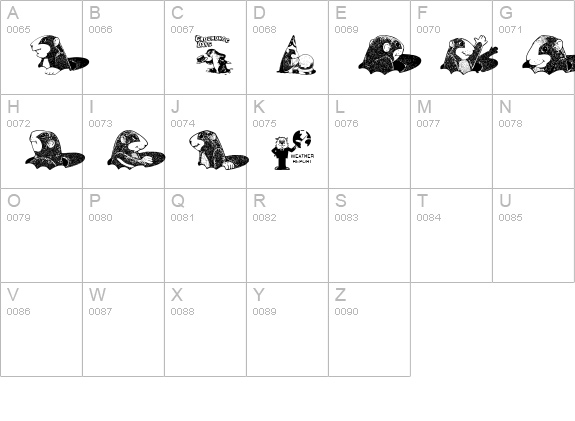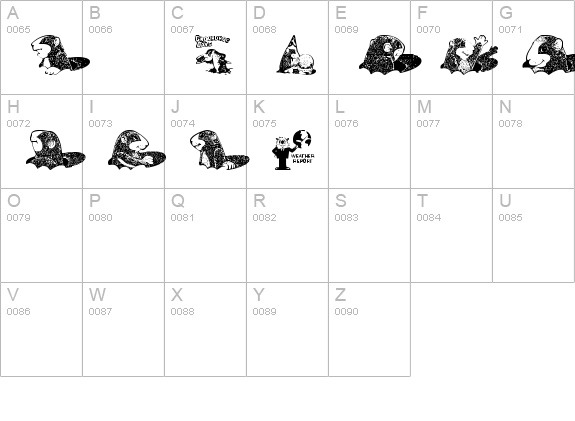
groundhog Font Details
Groundhog font is a playful and whimsical typeface that adds a touch of fun to any design. With its rounded edges and friendly appearance, this font is perfect for projects that require a touch of lightheartedness. Whether you're designing a children's book, a party invitation, or a social media graphic, Groundhog font is sure to bring a smile to your audience's face. Best of all, Groundhog font is available for free download at FontsMarket.com. This means you can easily add this charming font to your collection without breaking the bank. So go ahead and give your projects a playful twist with Groundhog font today!